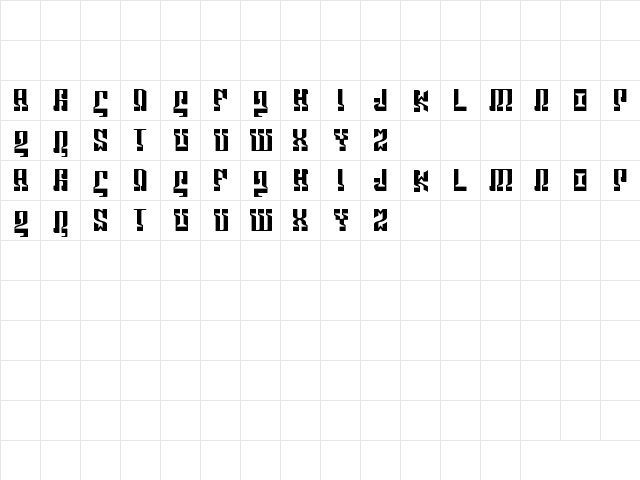
MARSHOSBN Regular
Design Context for MARSHOSBN Typeface
MARSHOSBN is a composed and adaptable typeface that performs quietly and consistently across a wide range of design contexts.